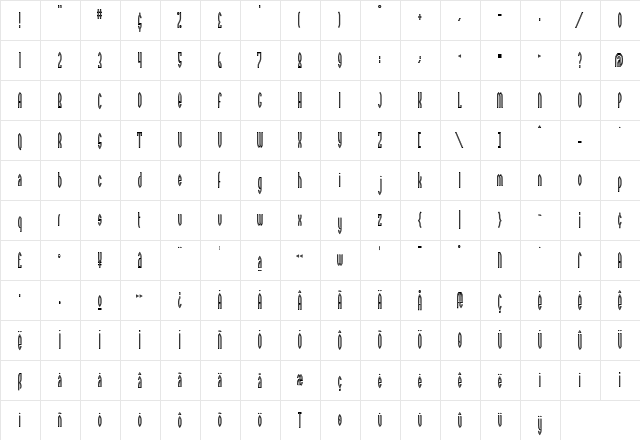
Bromide Light
Design Context for Bromide Typeface
Bromide offers clean, dependable letterforms without strong stylistic allegiance, making it a practical choice for designers who need flexibility. Its slender proportions lend an understated elegance to any composition.